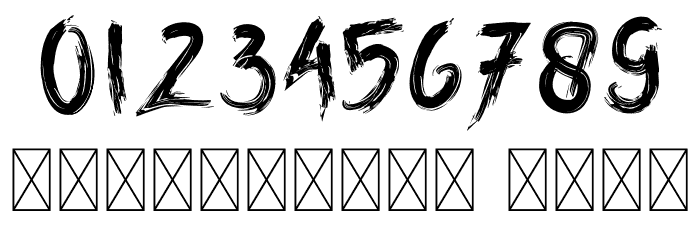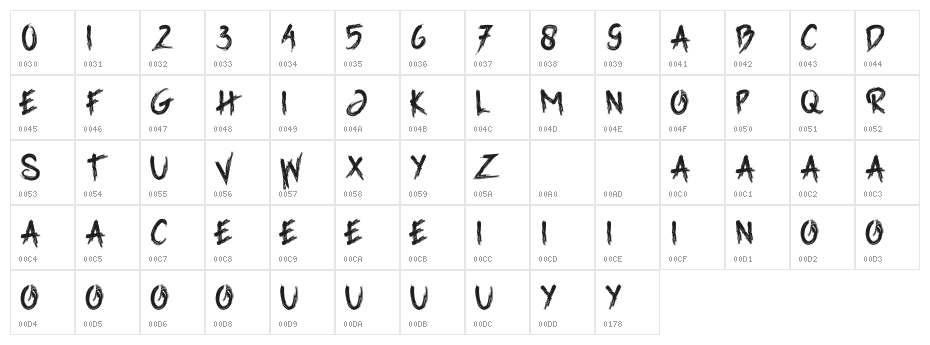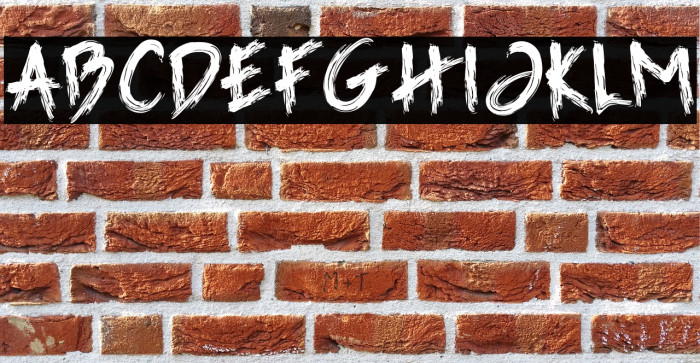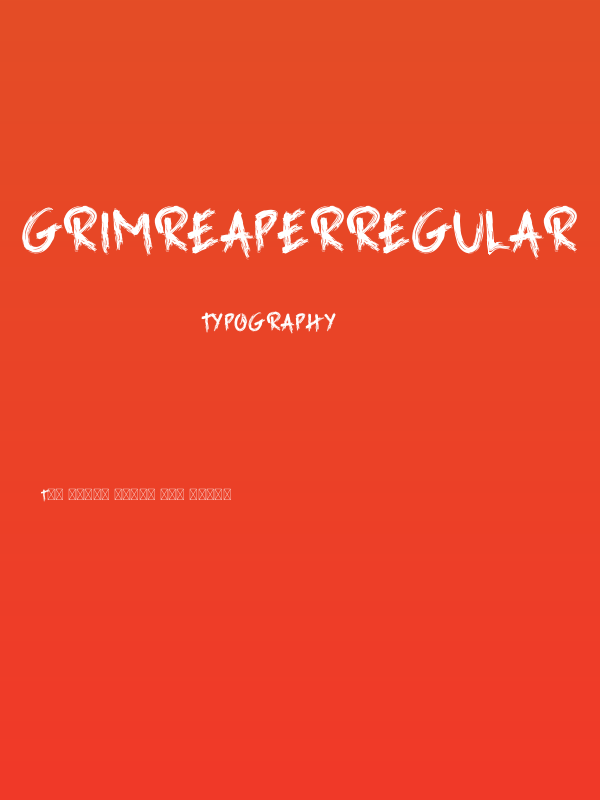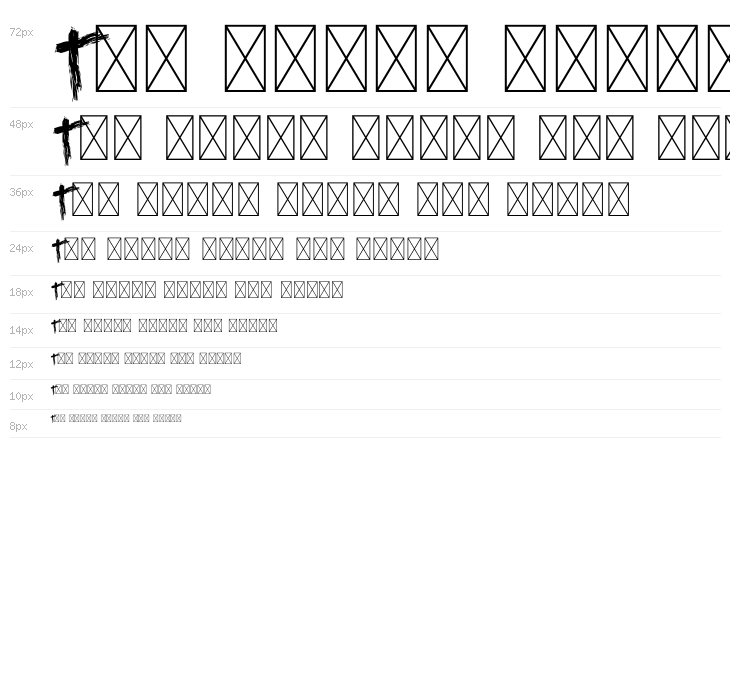
GrimReaperRegular Font
GrimReaperRegular Description
This font features a bold and aggressive design, characterized by its rough, brush-like strokes that give it a dynamic and edgy appearance. The uppercase letters are particularly striking, with each character exhibiting a unique, hand-drawn quality that suggests movement and energy. The numbers maintain this aesthetic, ensuring consistency across all characters. The font's style is reminiscent of horror or thriller themes, making it ideal for projects that require a dramatic and impactful visual presence. The irregular edges and varying stroke thicknesses contribute to its raw and untamed look.
| Proposed Projects | Ideal for horror movie posters, edgy branding, album covers, and Halloween-themed designs. |